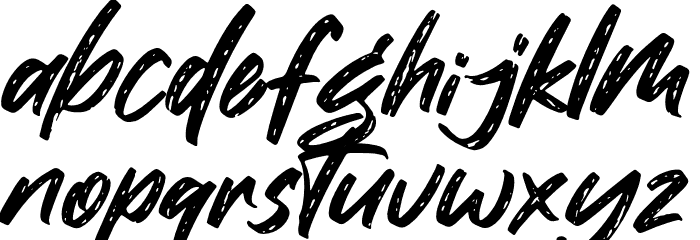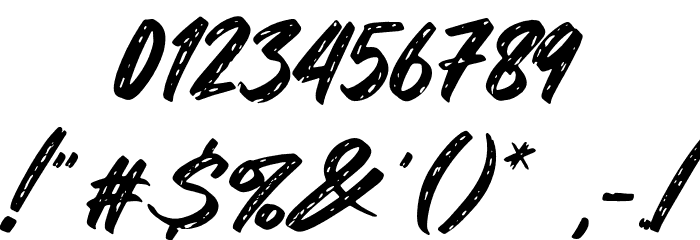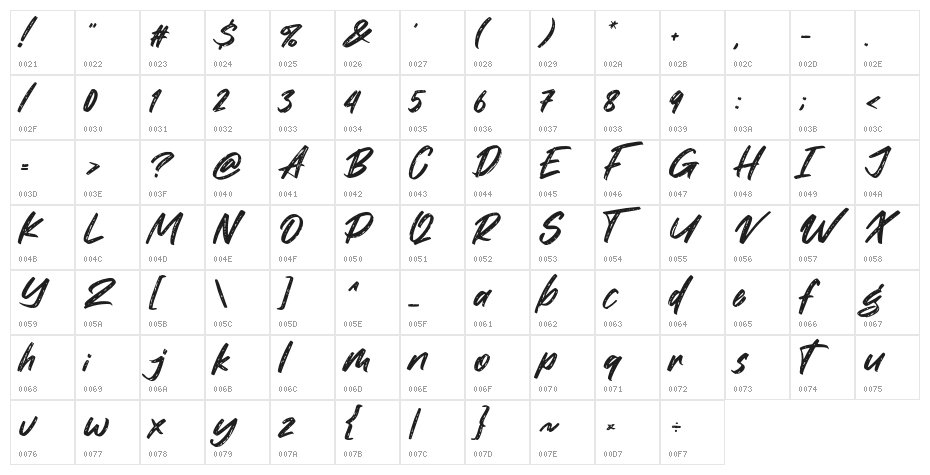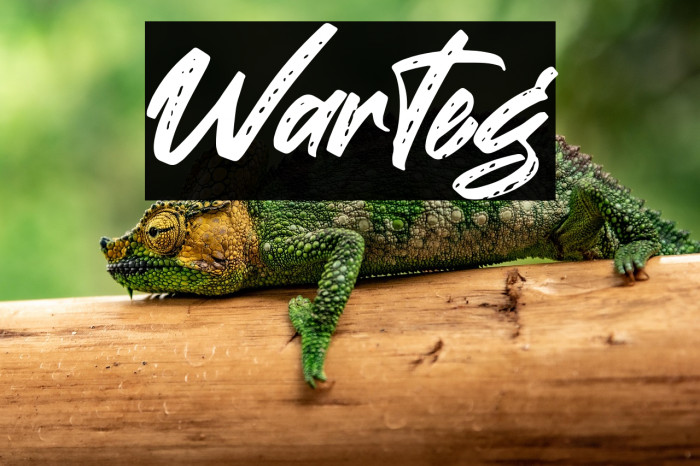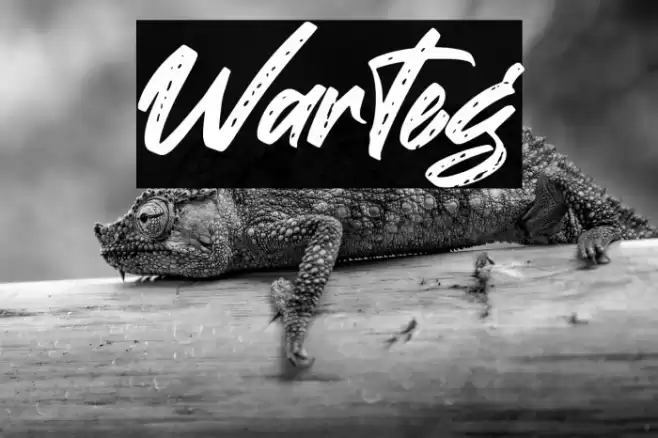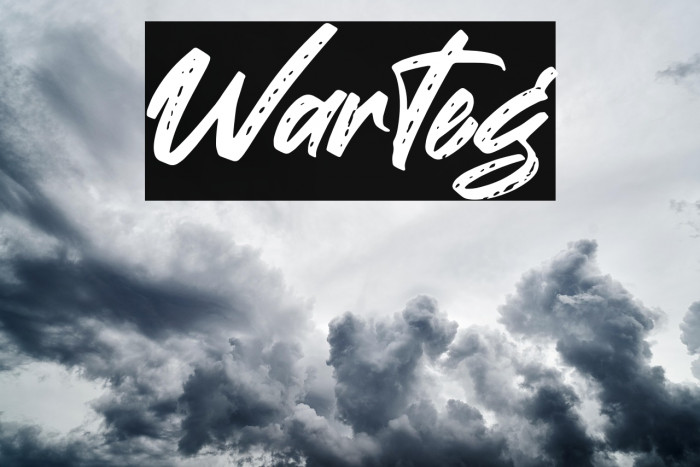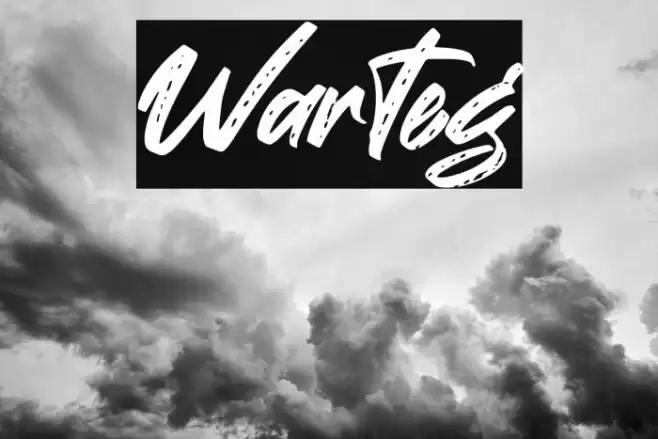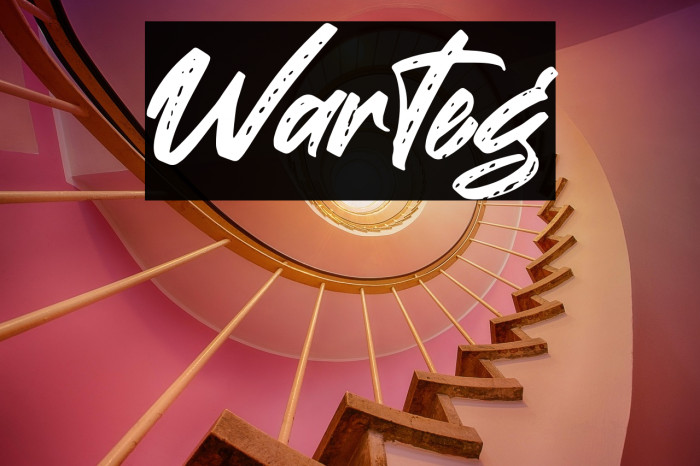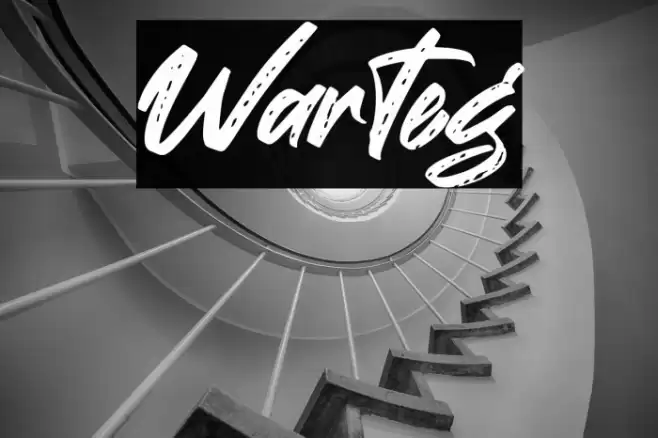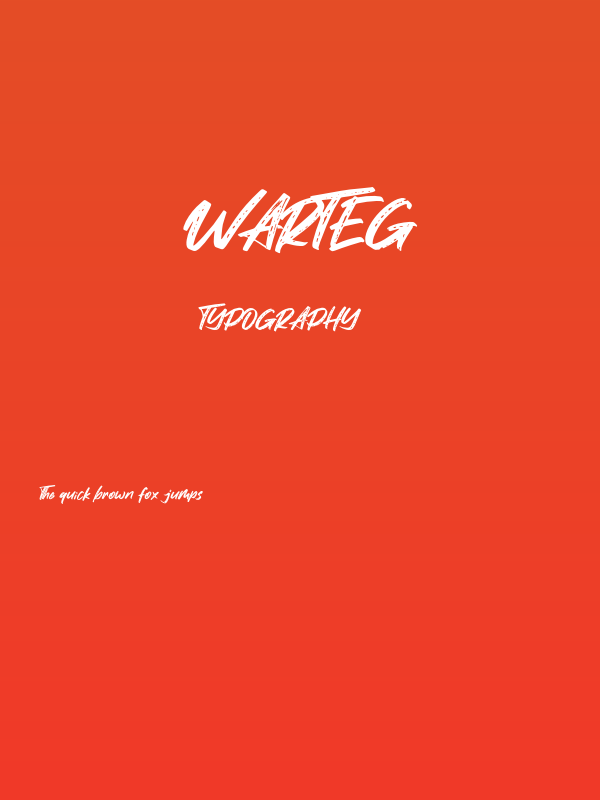
Warteg Font
This font features a bold and expressive handwritten style, characterized by its dynamic and energetic strokes. The letters are slightly slanted, giving a sense of motion and fluidity. The texture is rough, with visible brush-like strokes that add a raw, artistic feel. The uppercase and lowercase letters maintain a consistent style, while the numerals and special characters complement the overall aesthetic. This font exudes a casual yet impactful presence, making it suitable for creative and informal designs.
A bold, expressive handwritten font with dynamic, brush-like strokes.
- Proposed Projects: Ideal for posters, logos, branding projects, and social media graphics that require a personal and artistic touch.